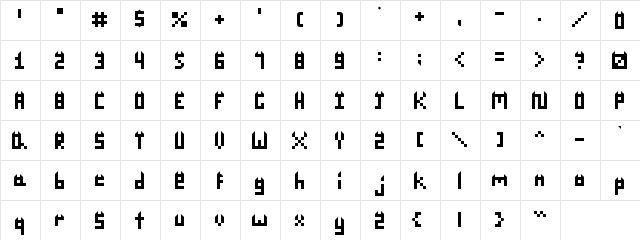
Horns Regular
Design Context for Horns Typeface
Horns is a composed and adaptable typeface that performs quietly and consistently across a wide range of design contexts.